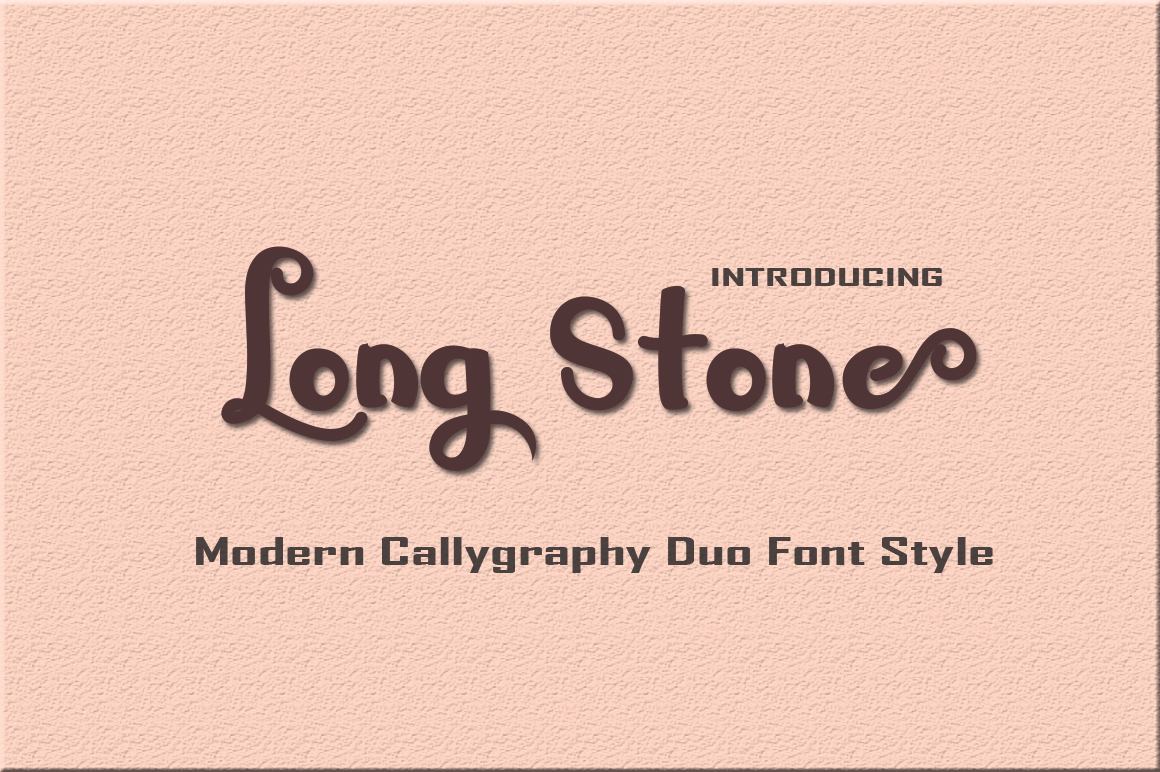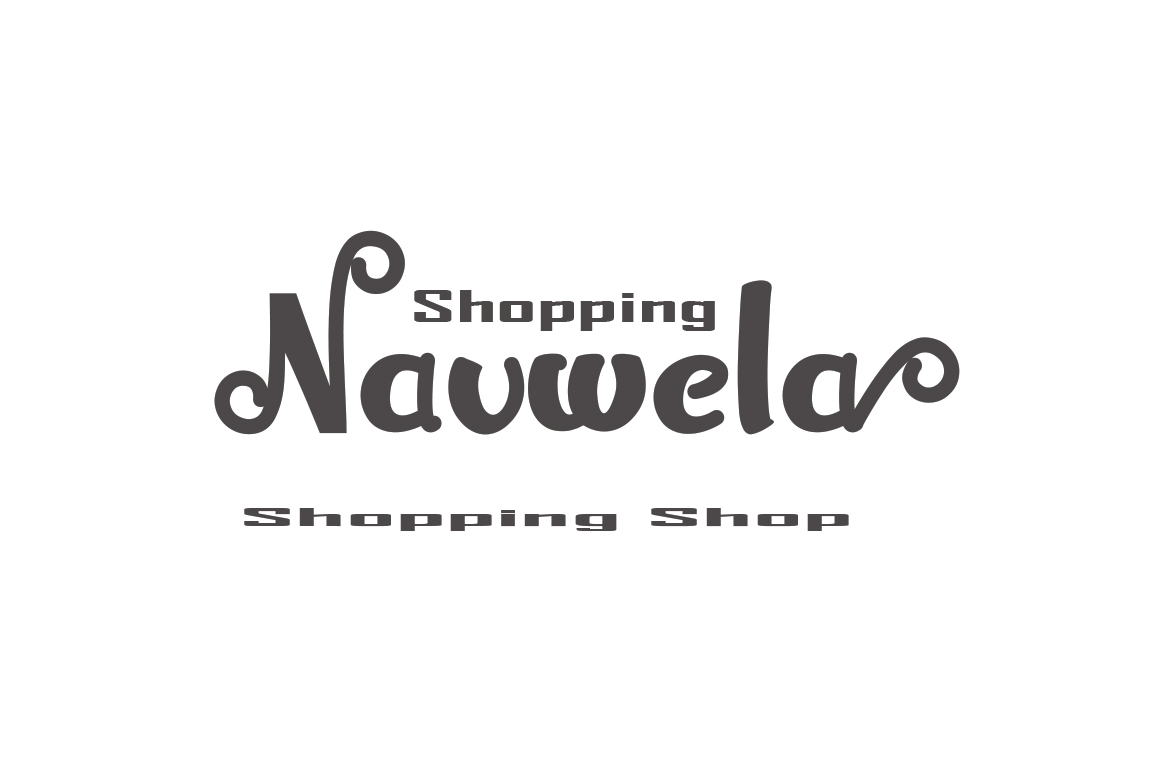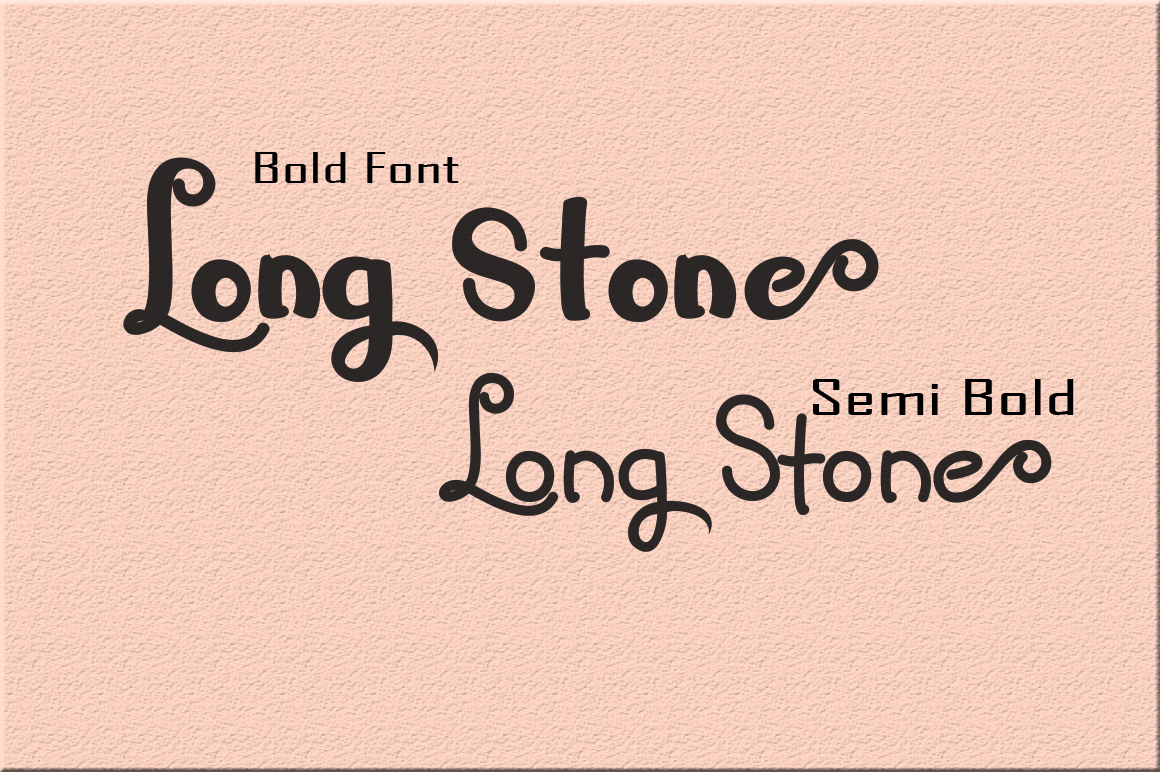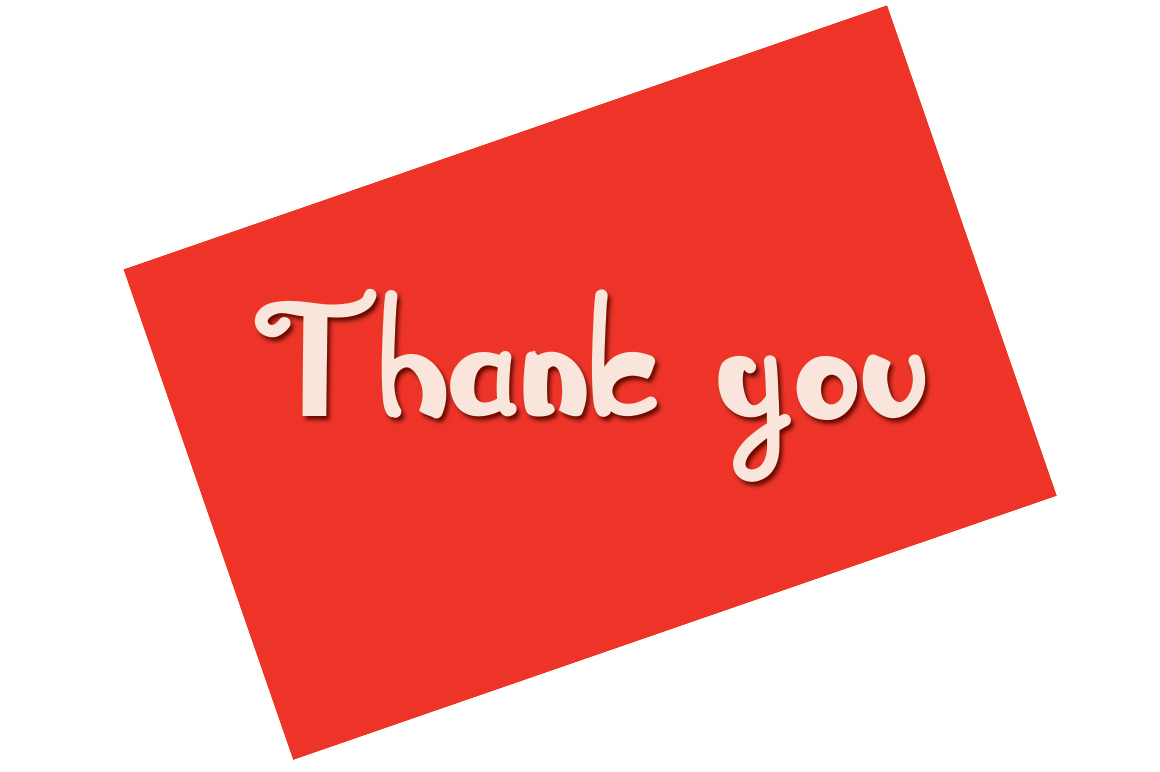
HomeScript FontsLong Stone Font Script Fonts Long Stone Font FacebookXPinterestWhatsApp Long Stone Font Poster 2 Long Stone Font Poster 3 Long Stone Font Poster 4 About Long Stone Font Long Stone is a fluid hand-painted script. The letters are very smooth and are pleasant on the eyes. DOWNLOAD ON CREATIVE FABRICAThis font is sold and delivered by Creative Fabrica. Font Canyon may earn a commission if you buy through this link. People also explored Reasoning Font Homeback Font Entwined Monograms Chimse Font Glastona Font Crisp Font Early Action Font Tranquillity Font Blackstone Font 299 0 TagsLong Stone Font Previous articleAilave FontNext articleCamelia Font LEAVE A REPLY Cancel reply Comment: Please enter your comment! Name:* Please enter your name here Email:* You have entered an incorrect email address! Please enter your email address here Website: Save my name, email, and website in this browser for the next time I comment. Personal Use Free Nuku Nuku Personal Use Free Read more about this font Romantic February Personal Use Free Read more about this font Adventure Font Personal Use Free Read more about this font Joystix Monospace Personal Use Free Read more about this font BLOG Elegant Wedding Invitation Fonts – Handwritten & Script Fonts Elegant Wedding Invitation Fonts Your wedding day is one of the most important moments of your life, and every detail matters—including your invitation design. Our... How to Cut Any Font on Cricut: Convert a Font to SVG (Free) Where to Buy American Fonts Online in 2024 Best Fonts for T-Shirt Design – Top 2025 Picks